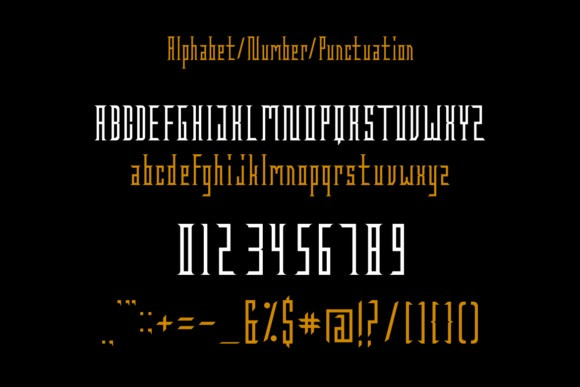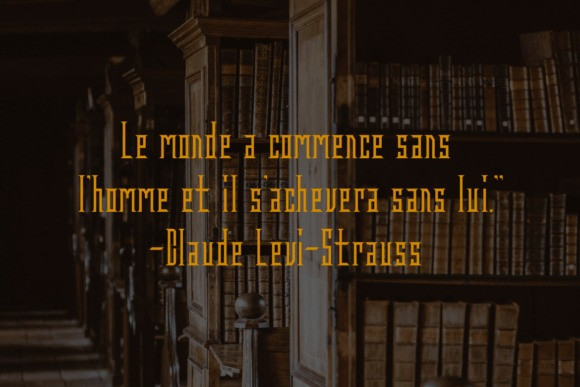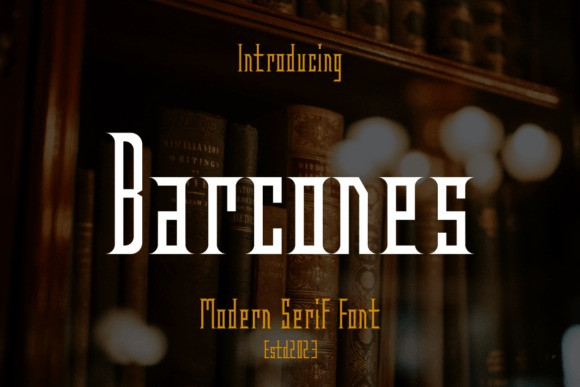
Barcones Font
Barcones Font feels playfully nostalgic and delivers an incredible vintage aesthetic. Use this serif font to add that special retro touch to any design idea you can think of!